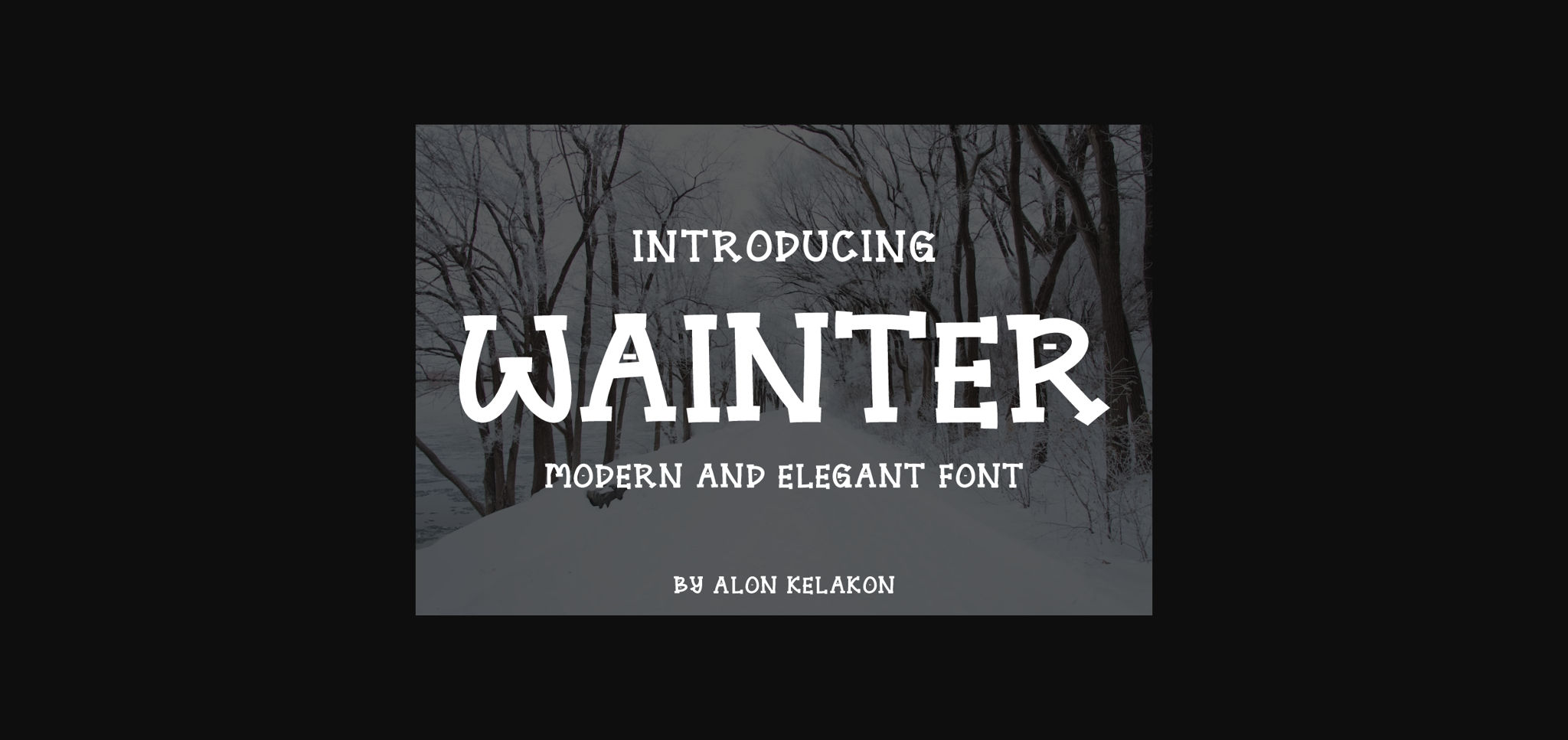
About Wainter Font
Wainter is a bold and authentic sans serif. It is suitable for use on your invitations, social media, posters, menus, business cards and so much more.